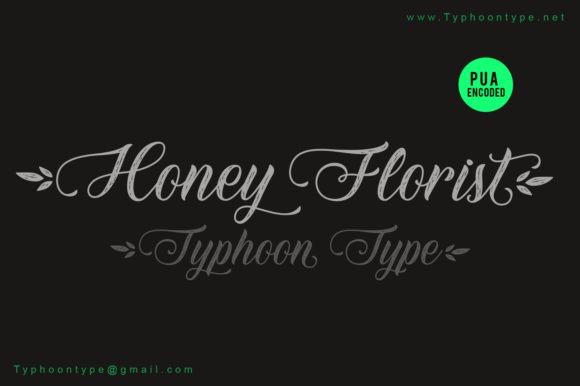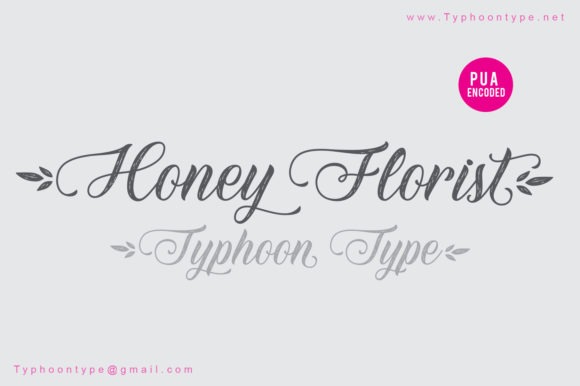
Honey Florist Calligraphy Font
This calligraphy font is perfect for a professional touch making this font more elegant and suitable for all types of projects you are working on, especially for romantic-themed work. But this font is also suitable for logos, branding, greeting cards, invitation cards, advertisements, titles, healines, book titles, stickers, packaging, quotes, posters, t-shirts/apparel, billboards and others.